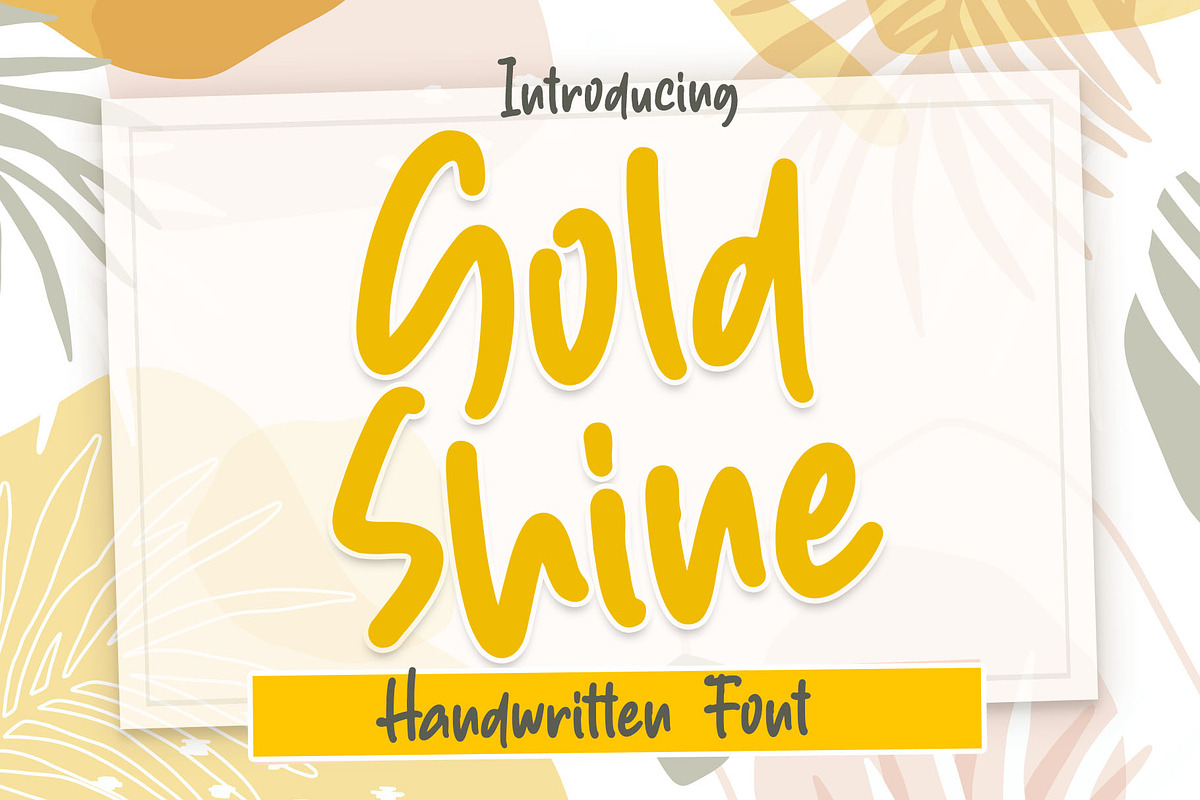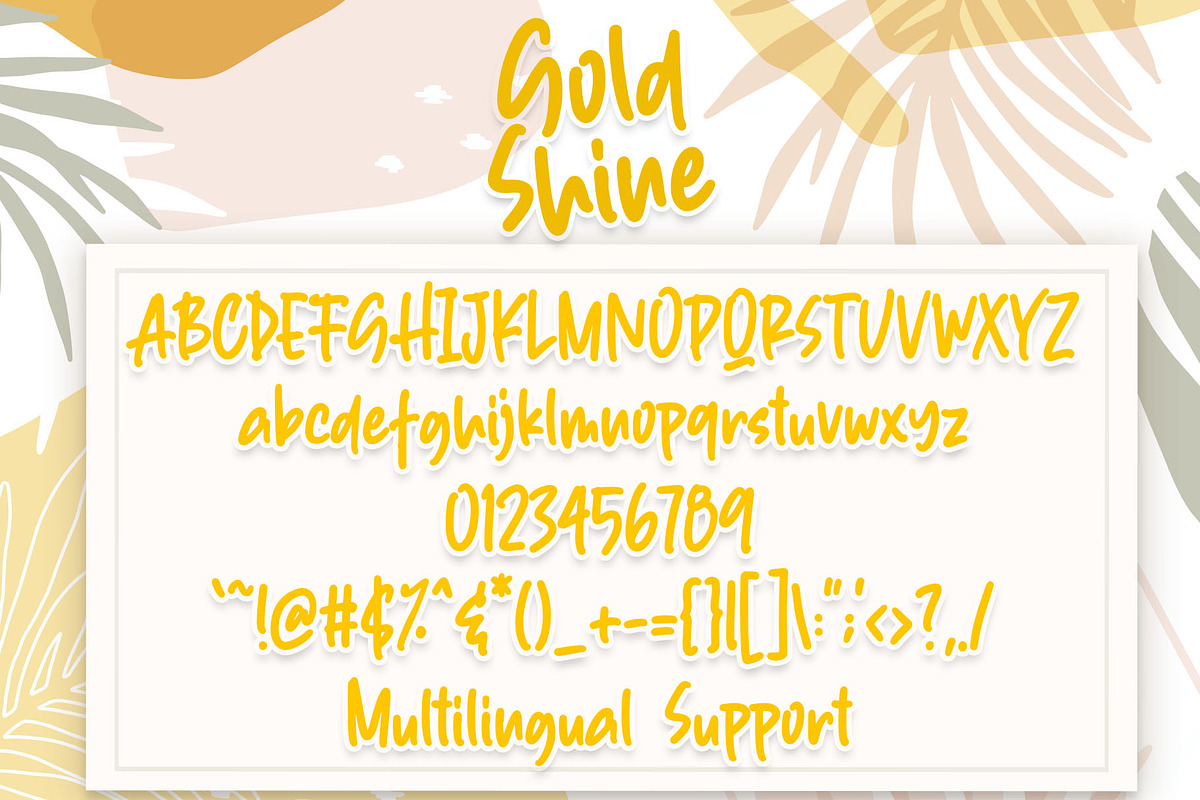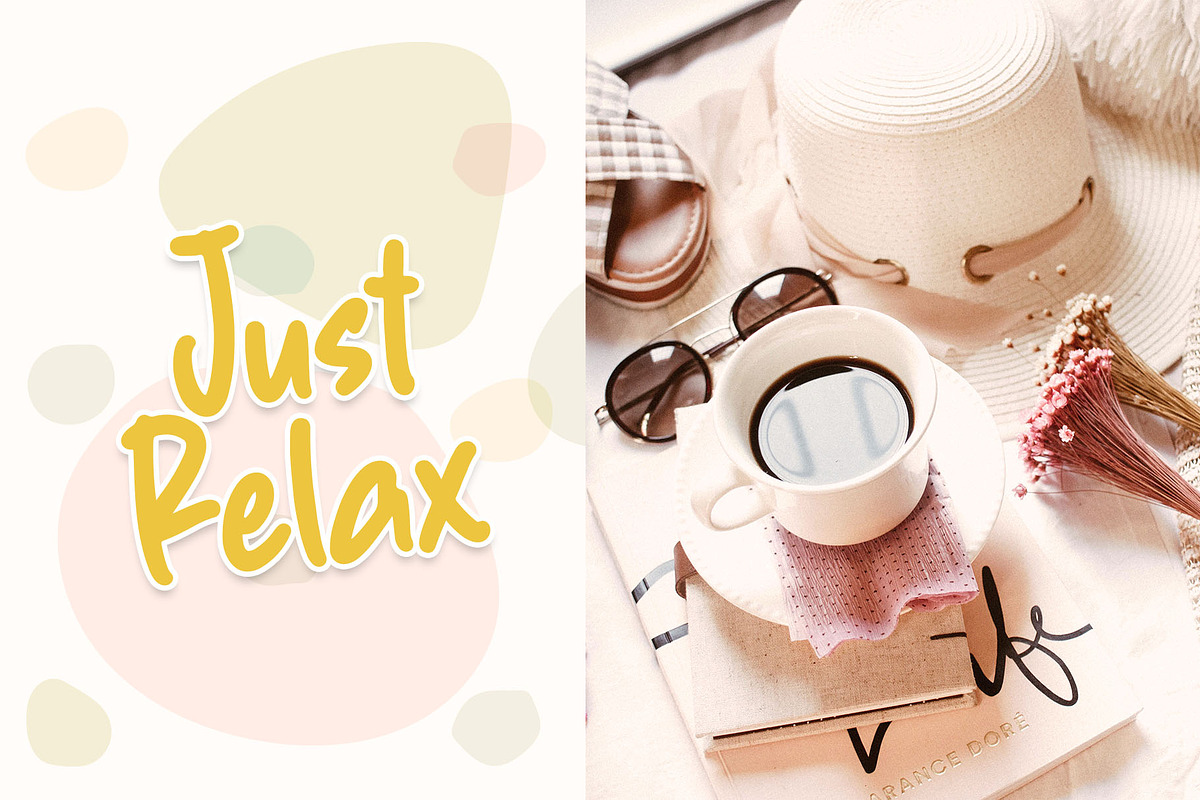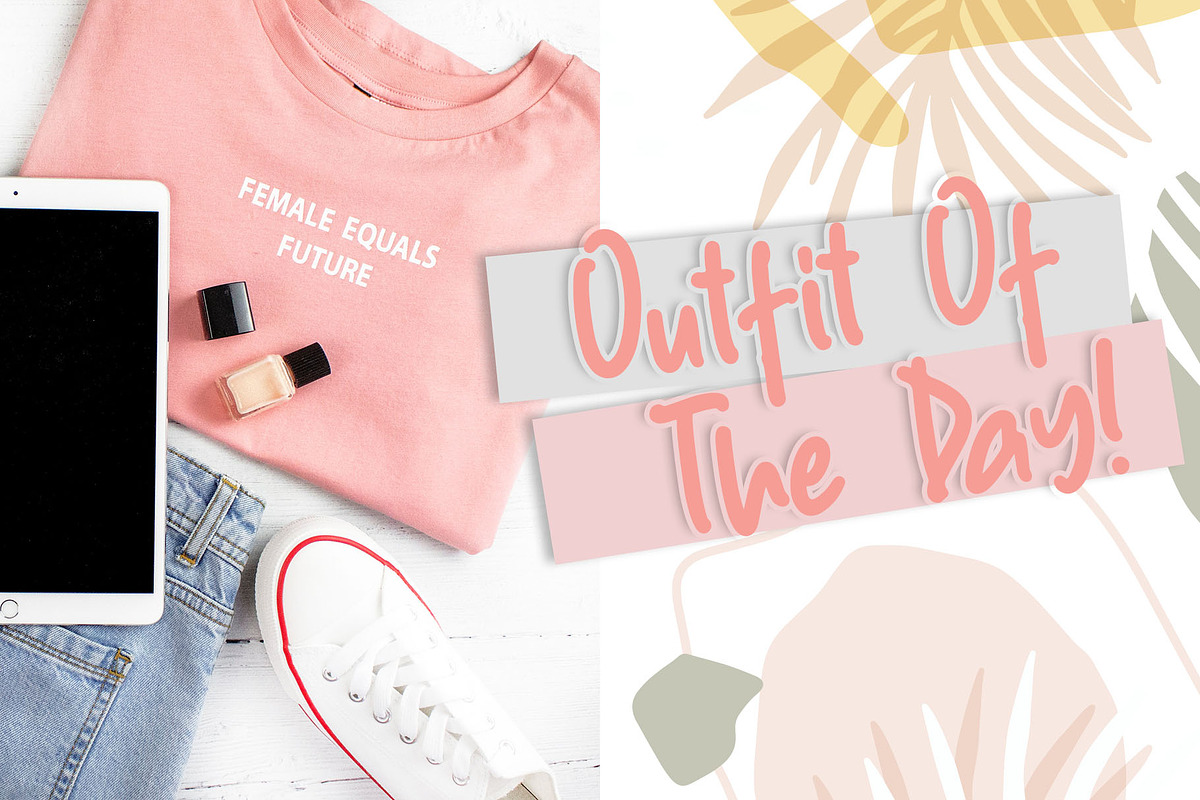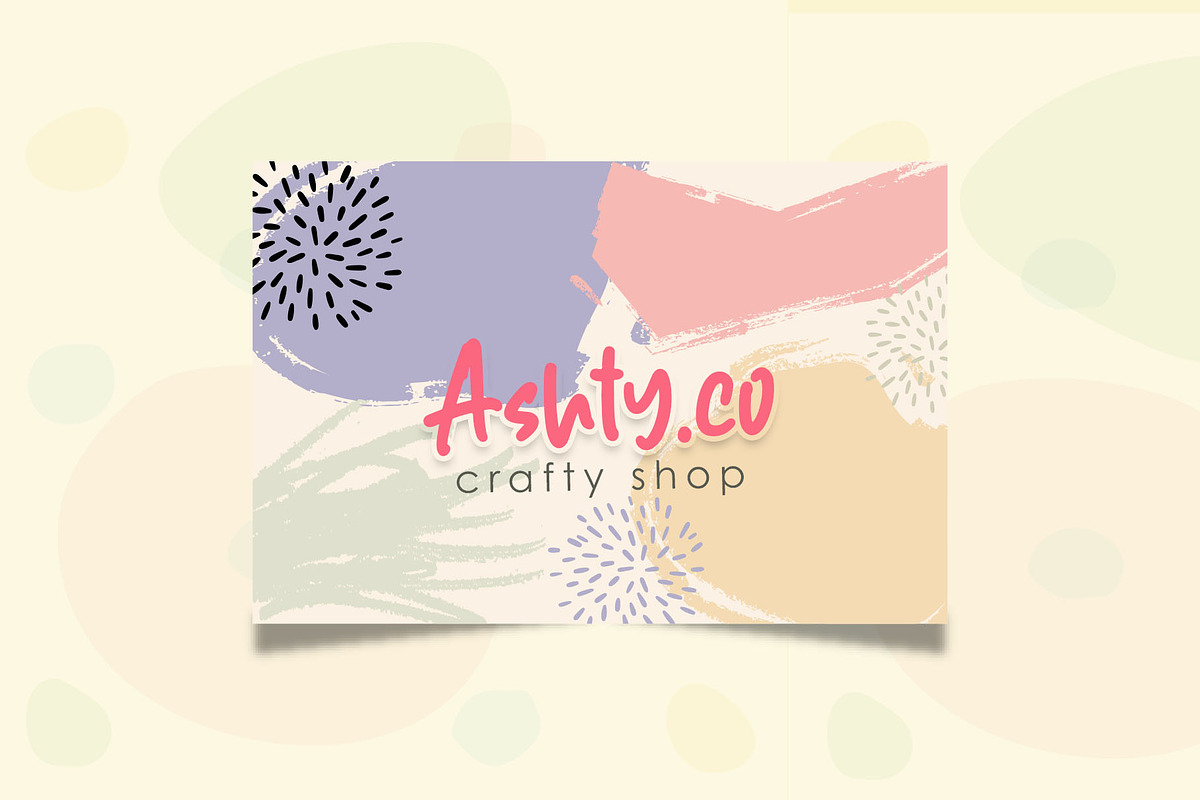
Gold Shine
Gold Shine is a friendly handwritten brush font. It's warm and versatile for any needs. Explore your creativity with this awesome font!
Features : -uppercase -lowercase -numeric -symbols -multilingual support